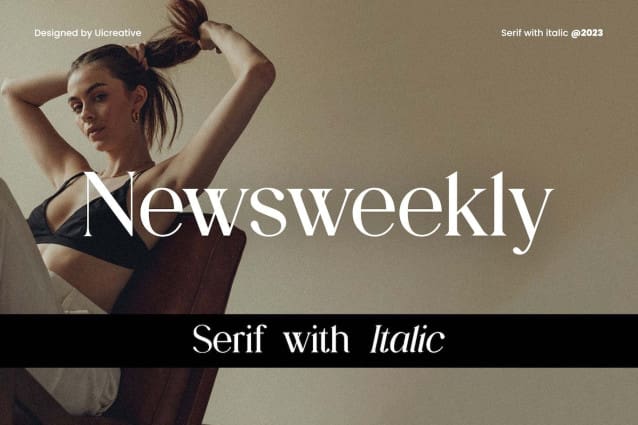
Newsweekly Font
Newsweekly Font – Editorial Serif Display Font that feels beautiful classy, elegant, and modern. This font is perfectly suited for a wide variety of projects, such as signature, stationery, logo, wedding, typography quotes, magazine or book covers, website headers, branding, packaging design, and more. Also, fashion-related branding or editorial design displays both masculine and feminine qualities.